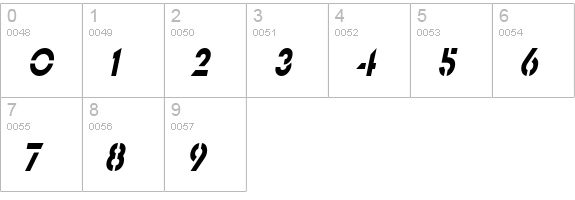
Templett S Condensed Italic Font Details
Templett S Condensed Italic is a distinctive, condensed-width, italic variant in the Templett typeface family \xE2\x80\x94 well suited to design and typography projects.
Templett S Condensed Italic is a sleek and stylish font that exudes elegance and sophistication. Its condensed form gives it a modern and contemporary look, making it perfect for projects that require a touch of refined simplicity. With its slanted and italicized design, Templett S Condensed Italic adds a touch of flair and dynamism to any text. Whether used for headings, titles, or captions, this font is guaranteed to catch the eye and make a statement. One of the best things about Templett S Condensed Italic is that it is freely available to download at FontsMarket.com. This means that you can easily access this stunning font without any cost. Whether you are a designer, a student, or simply someone who appreciates beautiful typography, Templett S Condensed Italic is a must-have addition to your font library. Its versatility is another standout feature. Templett S Condensed Italic is suitable for a wide range of projects, including branding, advertising, invitations, posters, and much more. It effortlessly adapts to different styles and themes, making it a versatile choice for both digital and print design. The attention to detail in Templett S Condensed Italic is evident in its refined curves and balanced letterforms. Every character is meticulously crafted to ensure legibility and readability, even in smaller sizes. This makes it an excellent choice for body text as well, adding a touch of sophistication to any written content. Whether you are designing a logo, creating a website, or working on a branding project, Templett S Condensed Italic is sure to elevate your designs to new heights. Its elegant and modern aesthetic, combined with its freely available download, makes it a valuable addition to any designer's toolkit. So don't miss out on this opportunity to enhance your creative endeavors with Templett S Condensed Italic. Download it for free today at FontsMarket.com and let your designs shine with its timeless beauty.